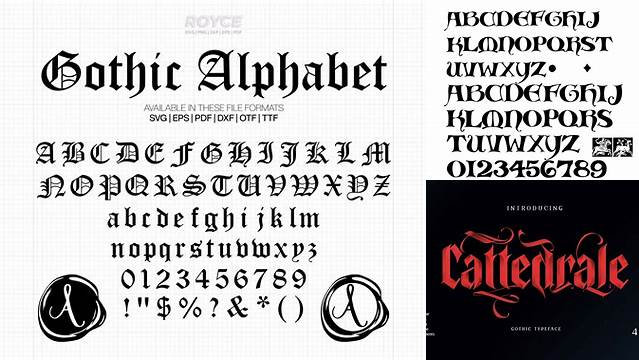
Free Gothic & Medieval Fonts For Designers
Are you looking to add a touch of history, mystery, or perhaps a bit of old-school flair to your design projects? If so, free Gothic and Medieval fonts are a fantastic way to achieve that. These fonts, with their intricate details and unique character, can transport your audience to a different era. Whether you're working on a website, a poster, a book cover, or anything in between, the right font can make all the difference. In this guide, we'll explore the world of free Gothic and Medieval fonts, covering their history, their characteristics, where to find them, and how to use them effectively. Get ready to dive into the world of elegant serifs, ornate letterforms, and the timeless beauty of these classic typefaces.
Understanding Gothic and Medieval Fonts
Before we get into the nitty-gritty of finding and using these fonts, let's clarify what we mean by "Gothic" and "Medieval." These terms are often used interchangeably, but there are some subtle differences, and understanding these nuances can help you choose the right font for your project. Gothic fonts, also known as Blackletter or Old English fonts, are characterized by their sharp, angular letterforms, often with thick strokes and elaborate flourishes. They originated in the 12th century and were widely used in Europe for manuscripts and early printed books. These fonts have a strong, imposing presence and are ideal for projects that require a sense of formality, tradition, or historical authenticity. On the other hand, Medieval fonts encompass a broader range of styles that were used during the Middle Ages. This includes Gothic fonts, but also encompasses other styles, such as Romanesque and early Renaissance fonts. Medieval fonts often have a more rounded and less angular appearance than Gothic fonts, and they can be more versatile in their applications. When choosing a font, it's essential to consider the specific aesthetic you're trying to achieve. Do you want something that evokes the feel of a medieval manuscript? Or are you looking for something that's more reminiscent of a Victorian-era newspaper? The answer to this question will guide you in selecting the right font.
The history of Gothic and Medieval fonts is rich and fascinating. Gothic fonts emerged in the late medieval period, around the 12th century. They were developed as a new style of writing, replacing the Carolingian minuscule script that had been used for centuries. Gothic fonts were characterized by their angular, broken letterforms, which were designed to be written quickly and efficiently. This was important because, at the time, books were handwritten, and scribes needed to produce them as quickly as possible. The development of the printing press in the 15th century had a significant impact on Gothic fonts. The printing press made it possible to produce books much faster and cheaper than by hand. As a result, Gothic fonts became the standard typeface for printed books in many parts of Europe. The use of Gothic fonts continued for centuries, but they gradually declined in popularity as new styles of fonts, such as Roman and Italic, emerged. Today, Gothic fonts are still used for various purposes, including headlines, logos, and decorative text. Medieval fonts, in contrast, are a broader category that encompasses the various typefaces used during the Middle Ages. This includes not only Gothic fonts but also other styles, such as Romanesque and early Renaissance fonts. Medieval fonts were influenced by various factors, including the availability of materials, the skill of the scribes, and the artistic styles of the time. These fonts were used for a wide range of purposes, from religious texts and legal documents to illuminated manuscripts and decorative artwork. The beauty of Medieval fonts lies in their variety and versatility. They can be simple and elegant or ornate and elaborate, depending on the specific style and purpose. Both Gothic and Medieval fonts provide a glimpse into the past, offering a window into the history of writing and design. They are an excellent choice for any project that aims to evoke a sense of history, mystery, or classic style.
Finding Free Gothic and Medieval Fonts
Using Gothic and Medieval Fonts Effectively
Once you've downloaded some fantastic free Gothic and Medieval fonts, the next step is to use them effectively in your design projects. Here are some tips to help you get the most out of these unique typefaces.
- Choose the Right Font for the Right Project: Gothic and Medieval fonts are not suitable for every project. They work best for projects that require a sense of history, tradition, or formality. Consider using them for book covers, headlines, logos, invitations, or websites with a medieval or gothic theme.
- Use Font Pairing Wisely: Gothic and Medieval fonts can be visually heavy, so it's essential to pair them with a complementary font. Generally, it's best to pair these fonts with a simpler, more modern font for body text. This creates a balance between the ornate display font and the readability of the body text. Sans-serif fonts often work well with Gothic fonts, while Roman fonts can complement Medieval styles.
- Pay Attention to Readability: Gothic fonts, in particular, can be challenging to read, especially in large blocks of text. Avoid using them for long passages of text, and ensure that the font size is large enough for easy reading. Use appropriate line spacing and letter spacing to improve readability.
Free Gothic and Medieval fonts can add a touch of elegance, history, and intrigue to your design projects. By understanding the characteristics of these fonts, knowing where to find them, and using them effectively, you can create stunning designs that capture the attention of your audience. So go ahead, explore the world of these classic typefaces, and let your creativity flourish. And remember, the key to success is to experiment, have fun, and let your imagination guide you. Happy designing, guys!